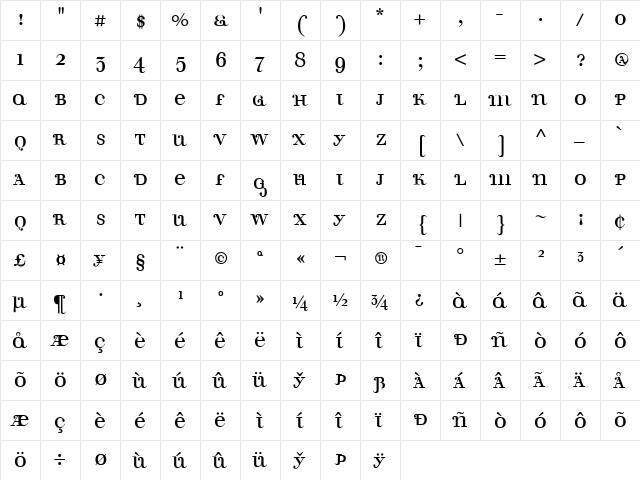
Theodor Medium
Design Context for Theodor Typeface
Theodor takes a measured approach to typography — its balanced proportions and neutral character make it a reliable workhorse for both digital and print work.